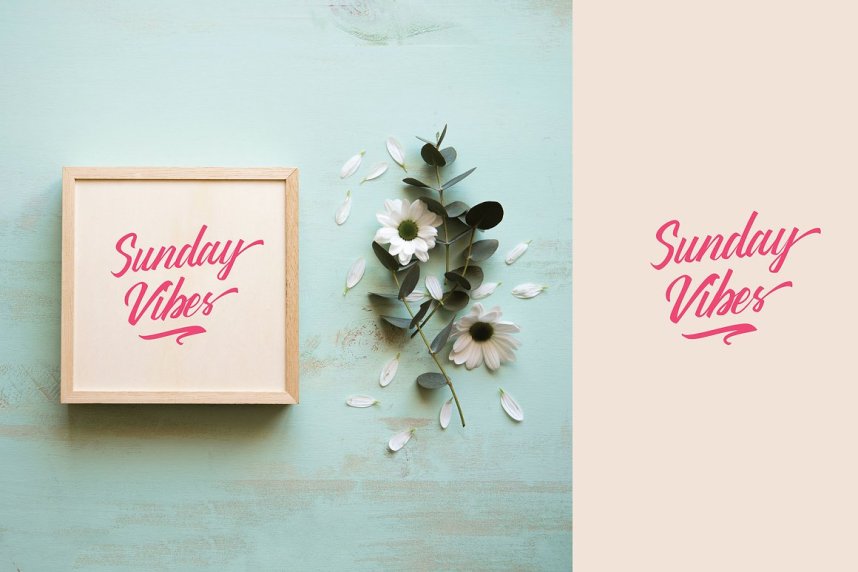
Thipe Script Font
Thipe – a new fresh handmade calligraphy font. Valentine’s Day, it’s great if you use this font for your love. Thipe Script Font was designed and shares by fathialghazi. Thipe is Script Calligraphy Typeface handwritten with elegant style. this font are great for various design like Logo, Product, Stationary, clothing brand and much more. Thipe have more Glyph for explore your design.